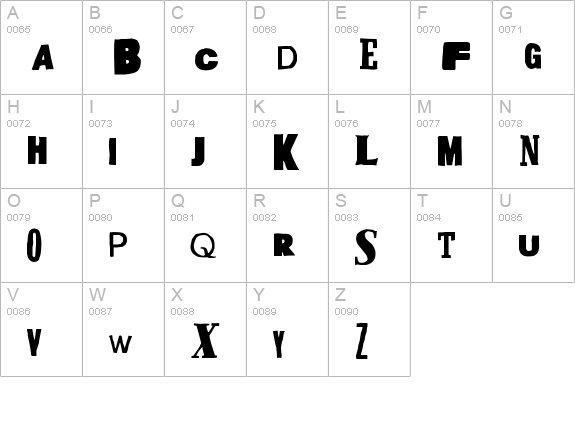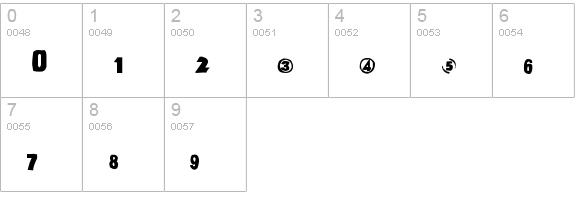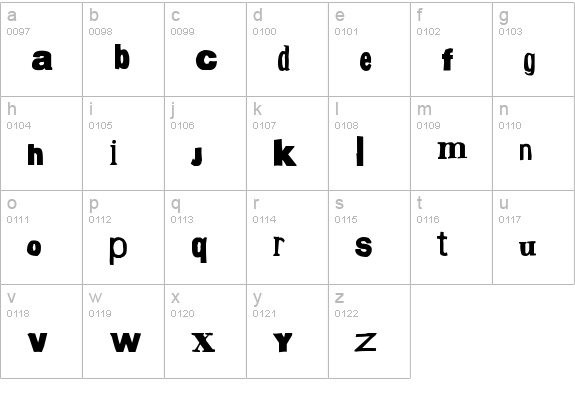
Introducing Head Surgery, an extraordinary font that combines strength and precision to deliver a visually striking and impactful design. This font is the ultimate choice for those seeking to make a bold statement with their typography. Head Surgery boasts elegant, sharp edges that create a sense of authority and confidence. Its unique letterforms are meticulously crafted, ensuring legibility and readability across various applications. Whether used for headlines, logos, or branding materials, this font captures attention and leaves a lasting impression. But what truly sets Head Surgery apart is its accessibility. This remarkable font is freely available to download at FontsMarket.com. This means that designers, artists, and creatives from all walks of life can effortlessly incorporate this stunning typeface into their projects. Gone are the days of limited resources and expensive font purchases. With Head Surgery, you have the freedom to explore and experiment without any restraints. Unleash your creativity and elevate your designs with Head Surgery. Its versatility and modern aesthetic make it an ideal choice for a wide range of projects, from digital to print. Whether you're designing a poster, website, or packaging, this font will undoubtedly make your work stand out from the crowd. Download Head Surgery today from FontsMarket.com and discover the power of free expression in typography. Embrace the limitless possibilities this font offers and make your designs memorable and impactful. With Head Surgery, you have the tools to create something extraordinary.